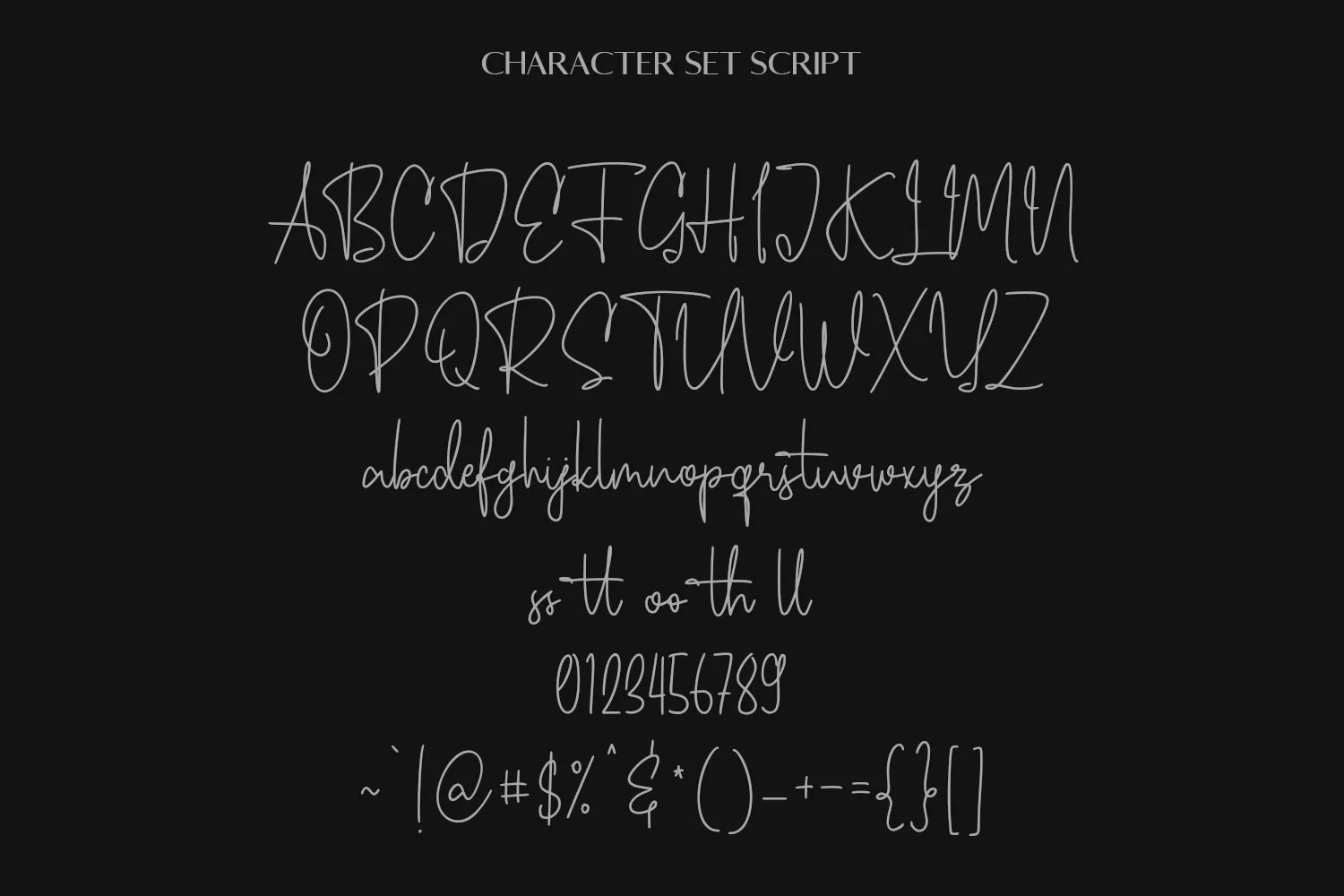
Jorja Smith is a fancy handwritten script font. With medium contrast stroke, fun character with a bit of ligatures and alternates. To give you an extra creative work. Jorja Smith font support multilingual more than 100+ language. This font is good for logo design, Social media, Movie Titles, Books Titles, a short text even a long text letter and good for your secondary text font with sans or serif. Make a stunning work with Jorja Smith font.